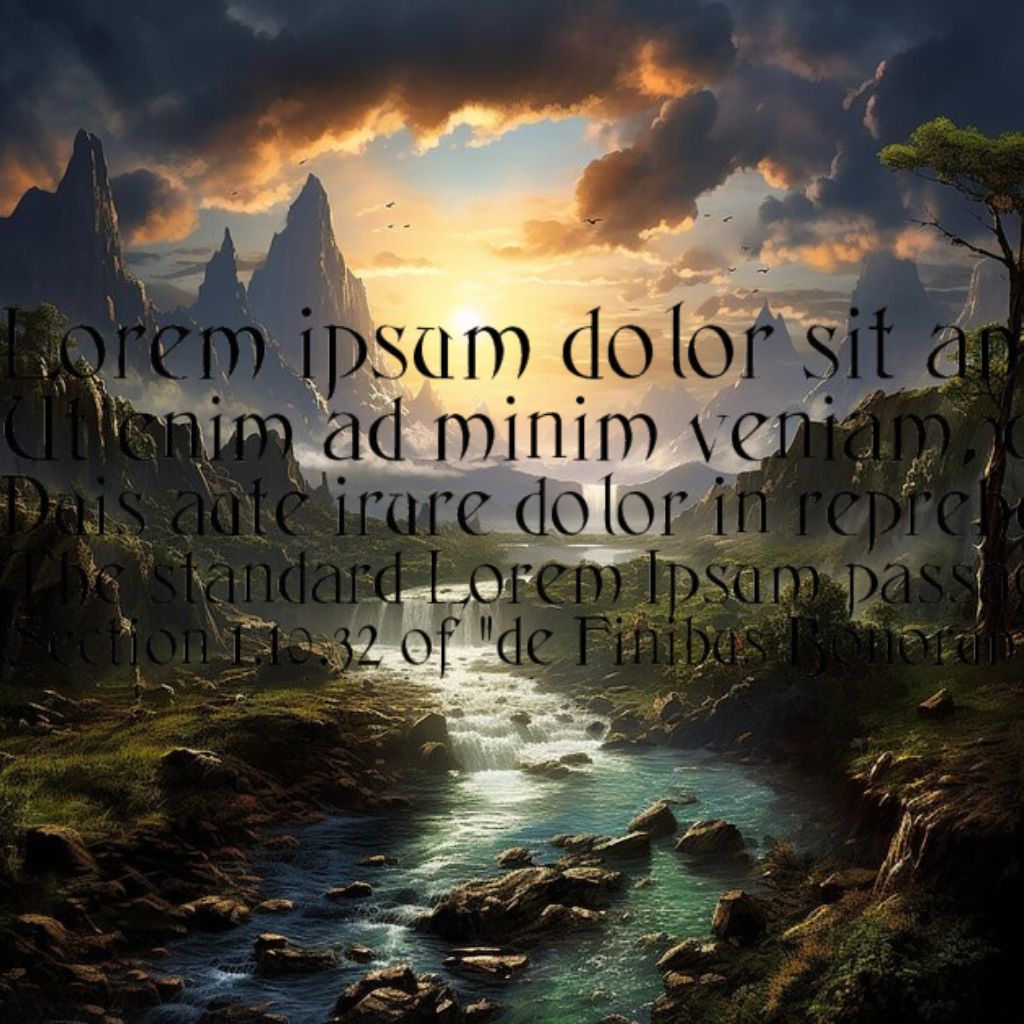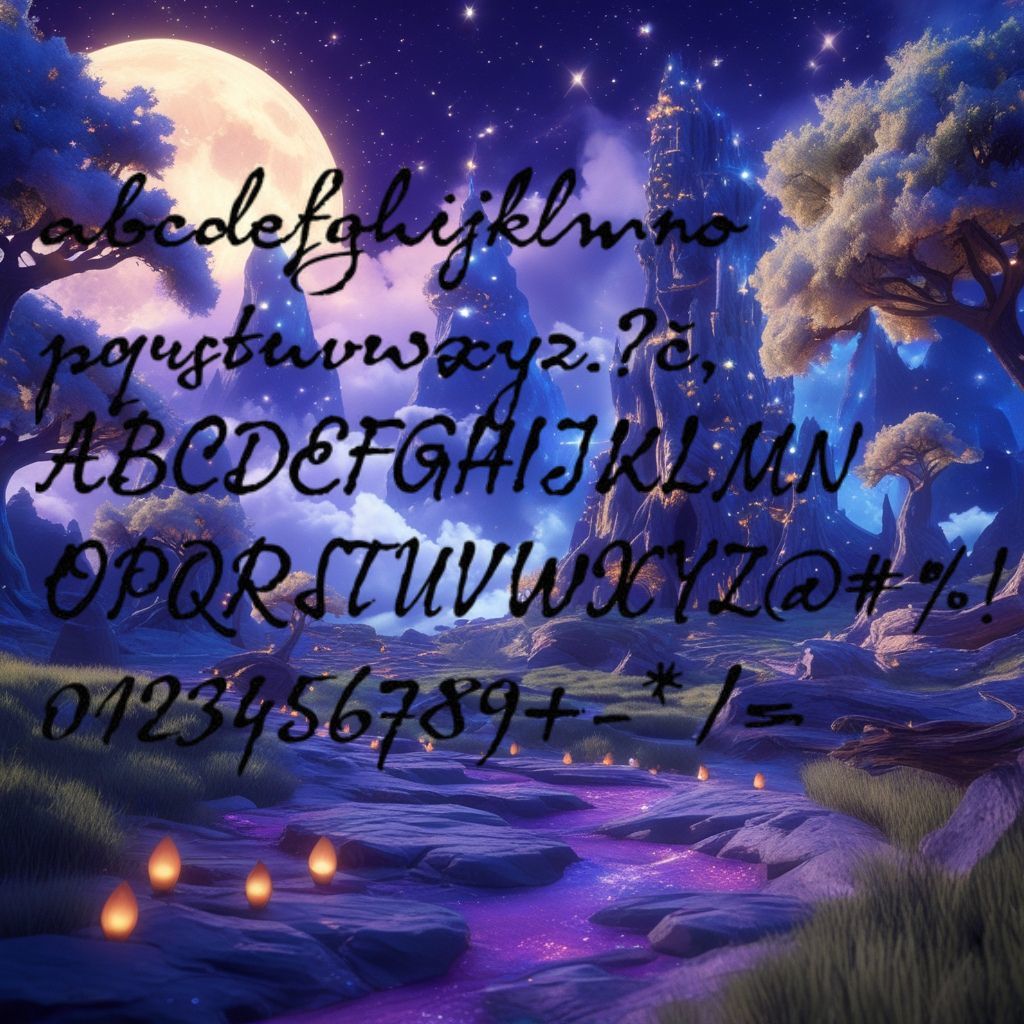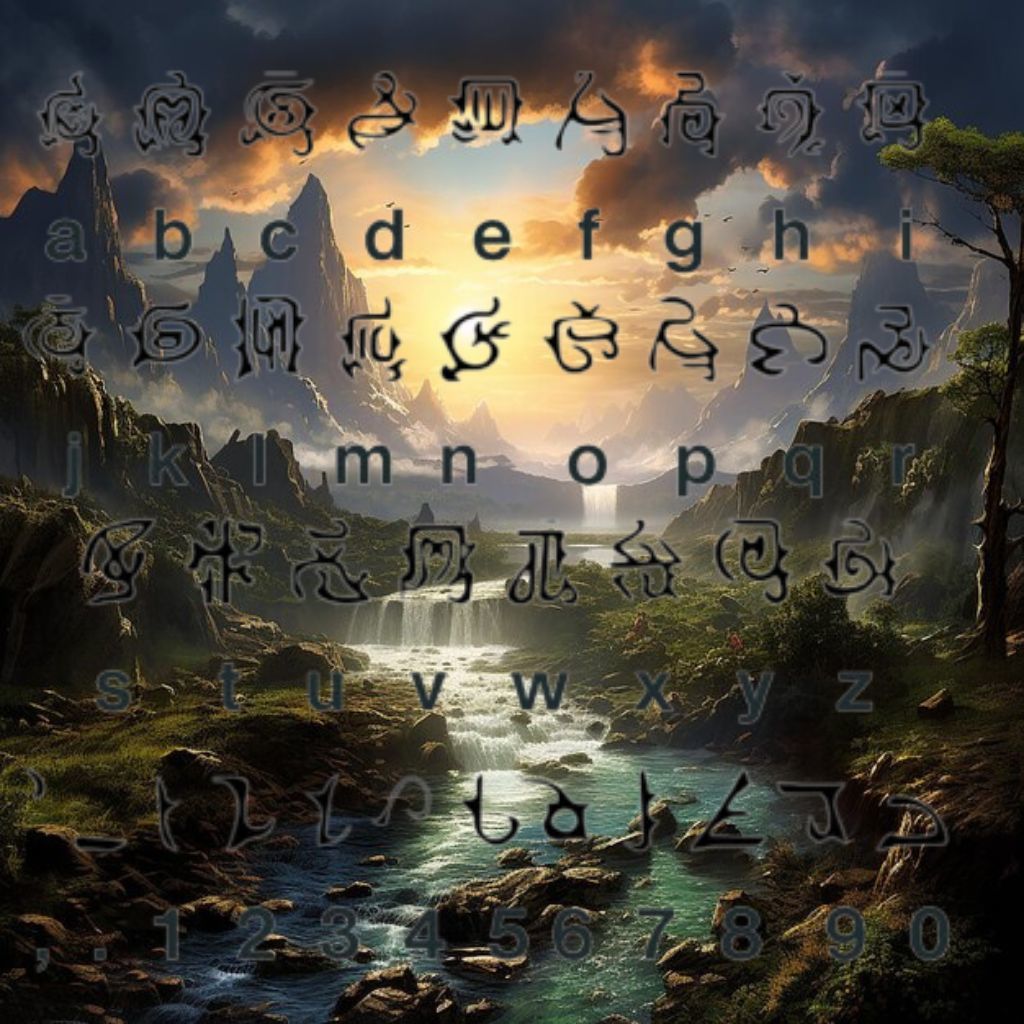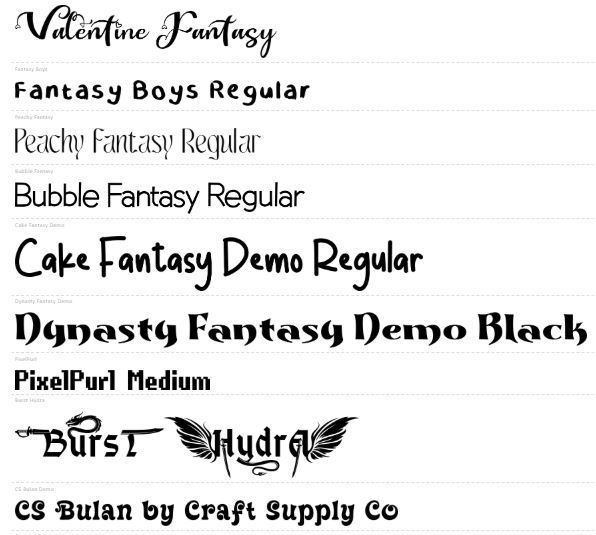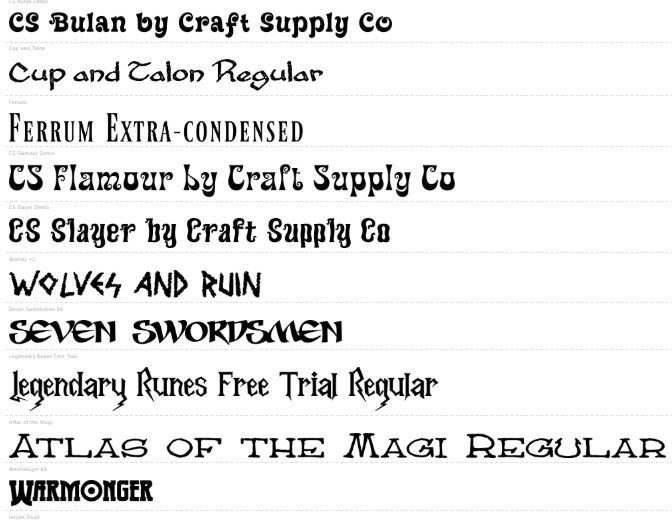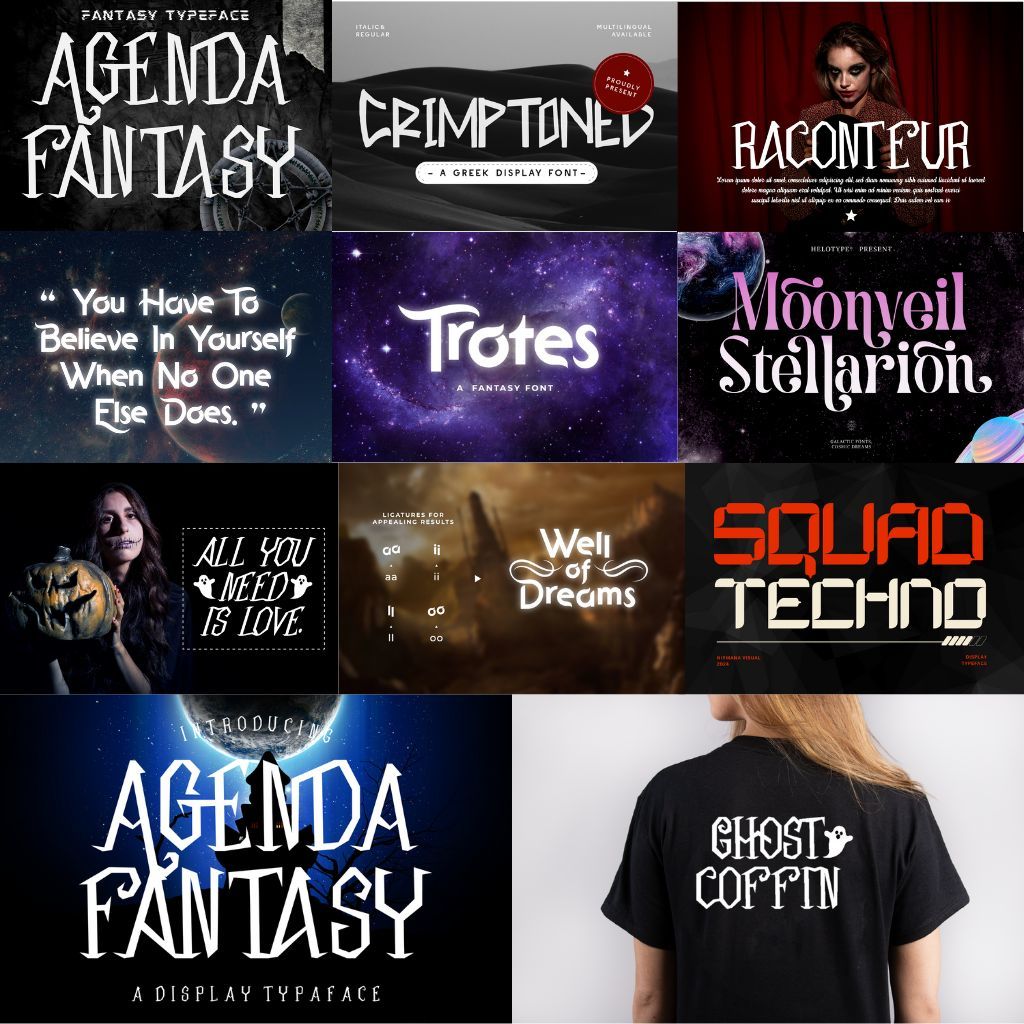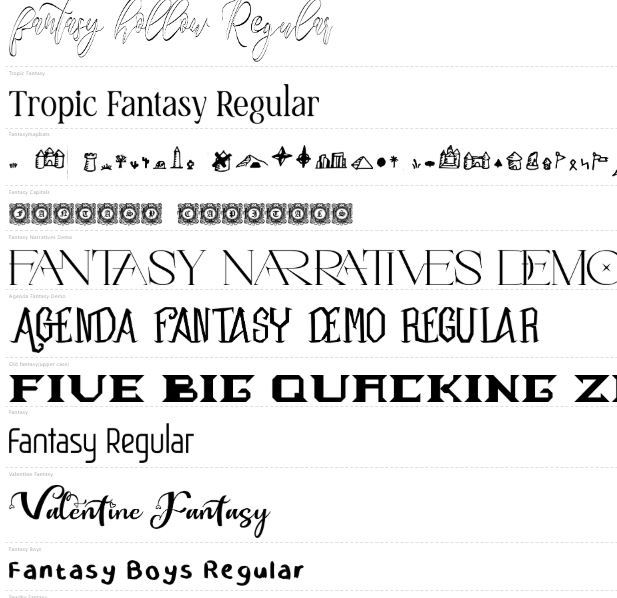
Fantasy Fonts is an enchanting collection that draws you into a world of imagination and wonder. The whimsical designs capture the essence of fairytales, transforming your creative projects into magical stories. Each font in this collection is meticulously crafted, combining intricate details with playful tones to inspire the dreamer in you. Using Fantasy Fonts is like opening a book of spells, where every character dances across the page with mystique and elegance. Whether you're designing invitations, creating artwork, or crafting digital content, these fonts offer the perfect blend of creativity and charm. Dive into a realm of artistic possibilities with Fantasy Fonts, where your ideas come to life in the most captivating way. Let your creativity soar with the delightfully magical touch of Fantasy Fonts.